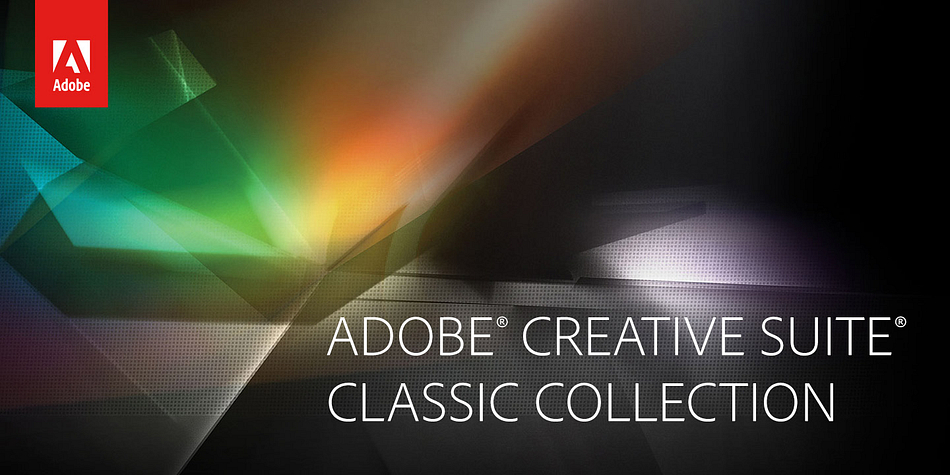
Adobe Creative Suite Classic Collection is a multiple classification font collection published by Adobe.
The Adobe Creative Suite Classic Collection is inspired by the standard set of fonts bundled with Adobe software products for many years.
In this collection, you get the most recent OpenType versions of western (Latin) fonts included with Adobe Creative Suite 6, including selected fonts from classic Adobe Originals typefaces like Adobe Caslon Pro, Chaparral Pro, Adobe Garamond Pro, Minion Pro, and Myriad Pro.